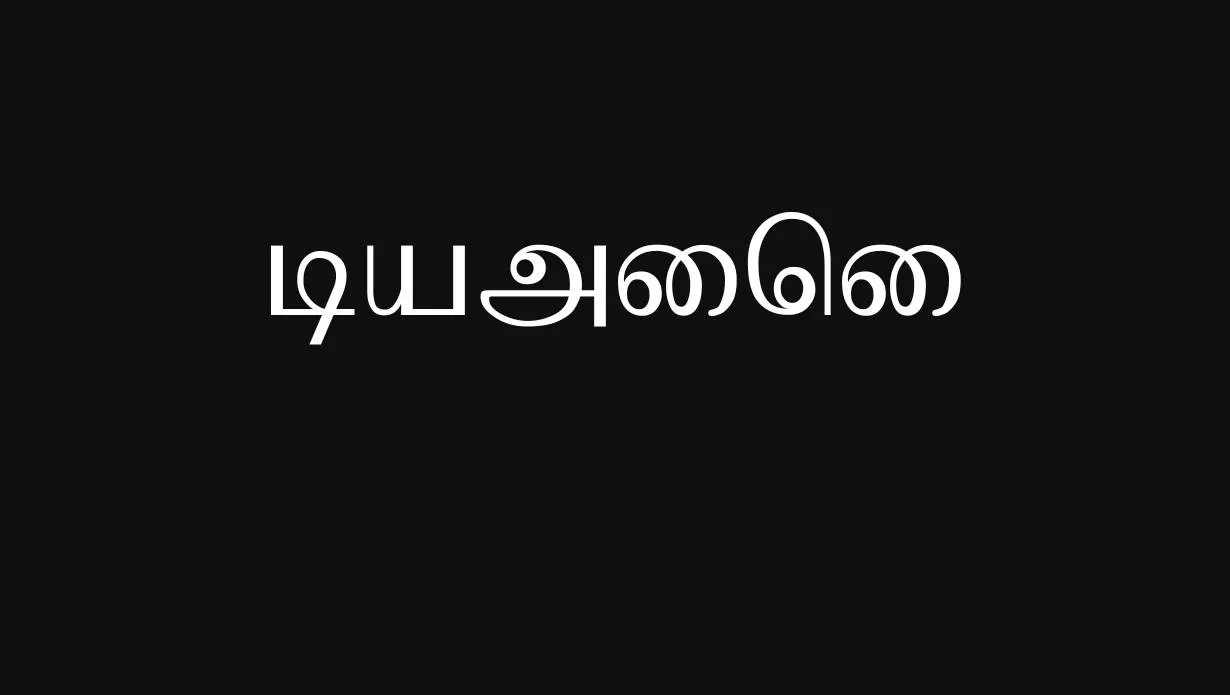
About Bamini Font Free Download
Bamini Font Free Download is a modern typeface available in multiple variants and styles.
- Bamini Font Regular
- Bamini Font Bold
- Bamini Font Italic